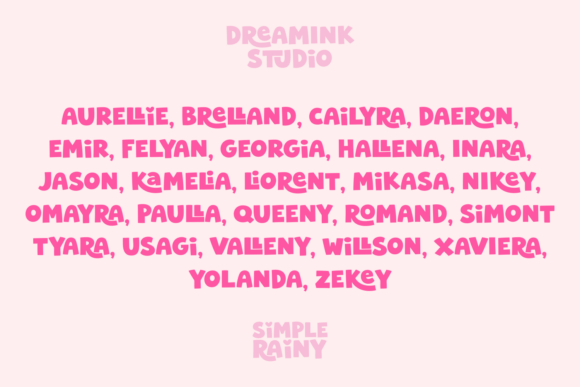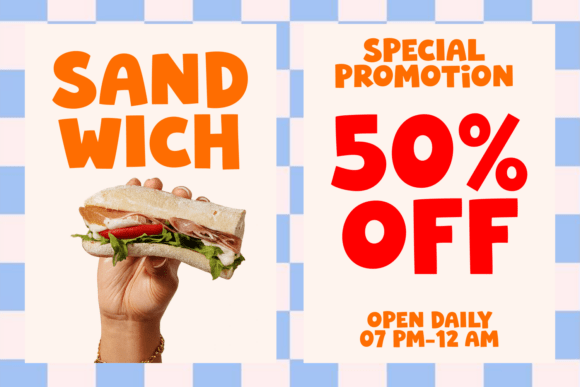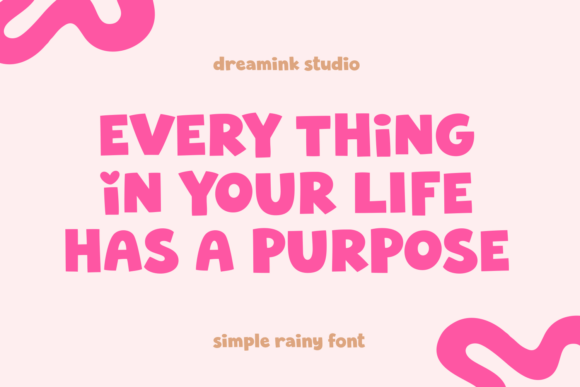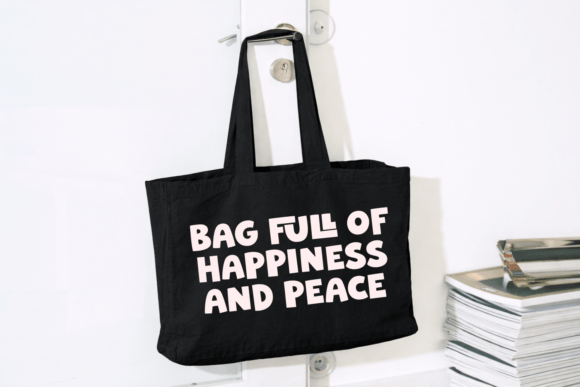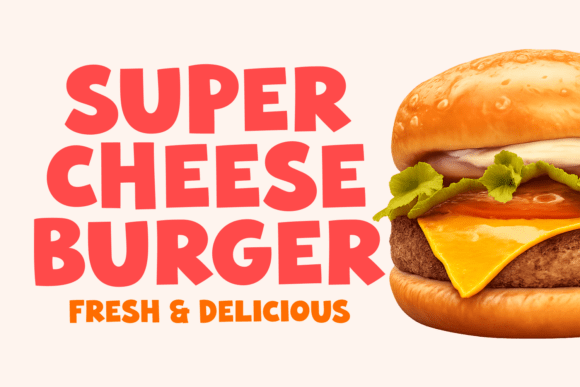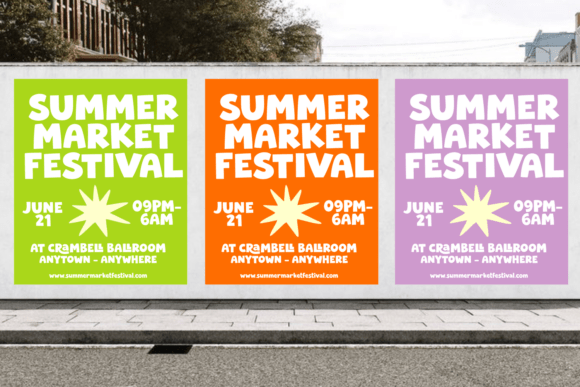
Introduction to Simple Rainy Font Font
Fonts play a crucial role in design, and the Simple Rainy Font font is a typeface that brings both character and versatility to any project. Whether you’re working on a branding project, a website, or a print design, the Simple Rainy Font font offers a unique style that can elevate your work.
Unveiling Simple Rainy, a whimsical and delightful display font crafted to infuse joy, warmth, and a hint of sweetness into your creative endeavors.
Bold, curvaceous in shape, and teeming with character, this splendidly fetching font emits a friendly and cute aura that enthralls at first sight Created with heartfelt precision, Simple Rainy boasts sleek contours, harmonious proportions, and a joyously enticing styleβuniquely suited for design contexts that require to be friendly, upbeat, and spirited.
Key Features of Simple Rainy Font Font
Why Choose Simple Rainy Font Font?
The Simple Rainy Font font is more than just a typeface β it’s a design tool that helps you communicate your message with style and clarity. Its unique character set and versatile design make it suitable for a wide range of applications, from elegant invitations to bold headlines.
With its carefully crafted letterforms and balanced proportions, the Simple Rainy Font font ensures readability and visual appeal across all mediums.
What makes Simple Rainy Font font special?
The Simple Rainy Font font stands out with its unique design, exceptional readability, and versatility across various design applications.